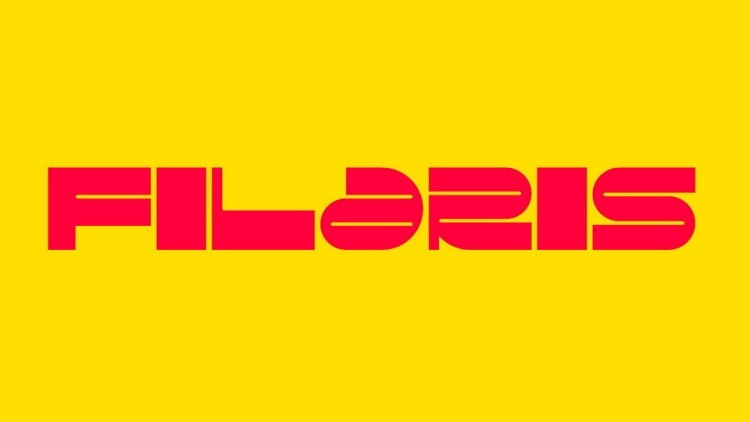
Filaris Font
Filaris Display Font is a high-contrast, reversed stress style display typeface. The bold shape of the font with the rhythmic contrast of the characters creates a unique pattern in the text line.
Filarisfont is great for highlighting titles, posters, album artworks and web design.